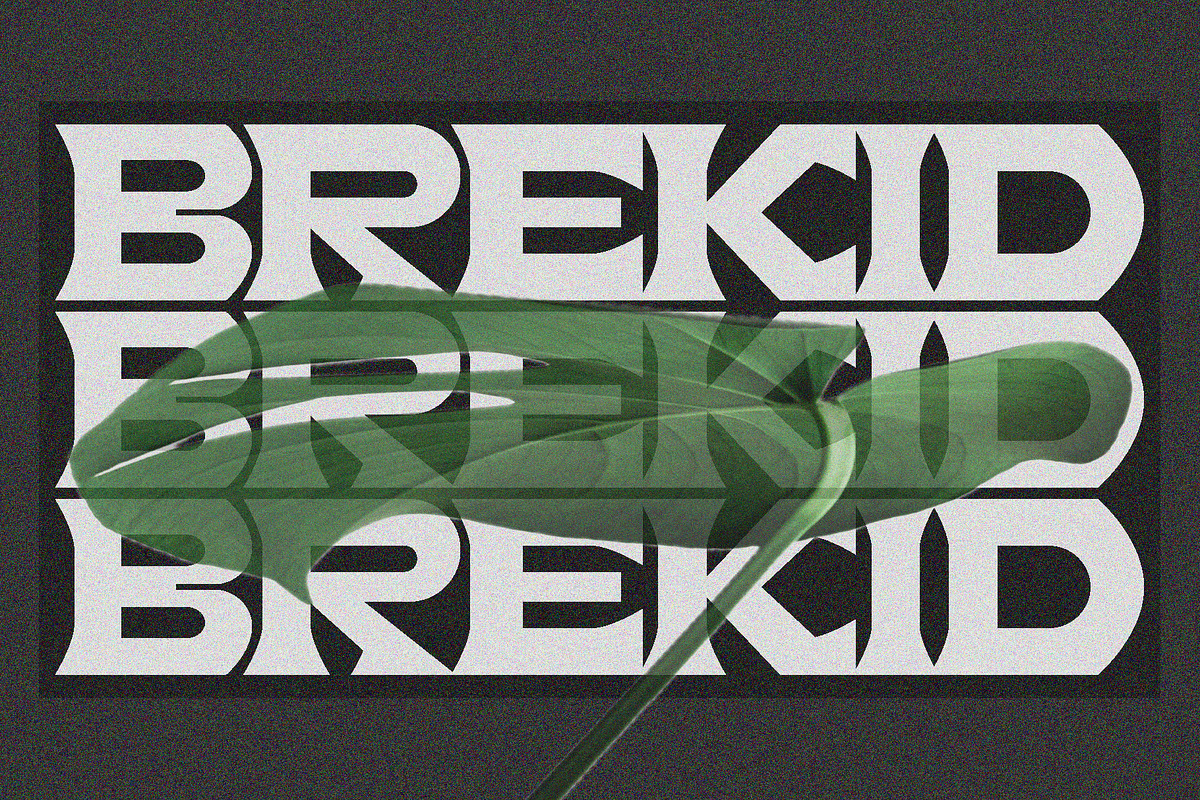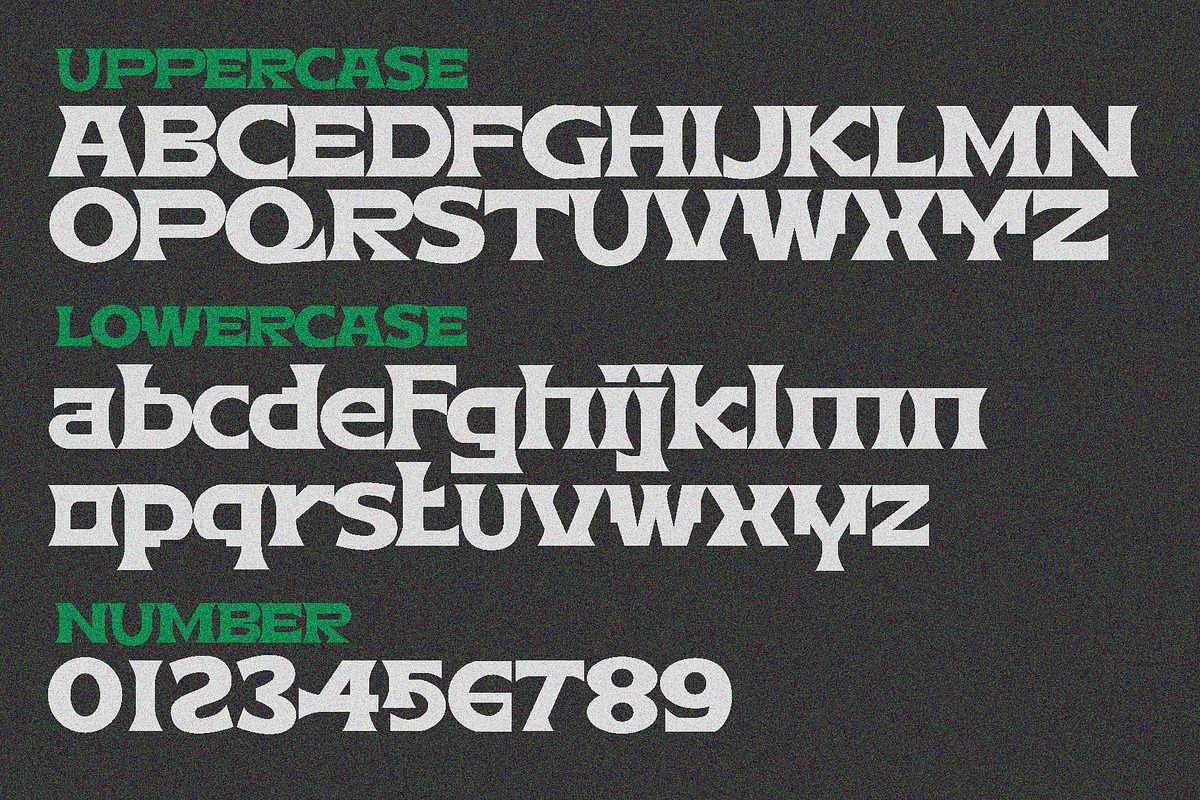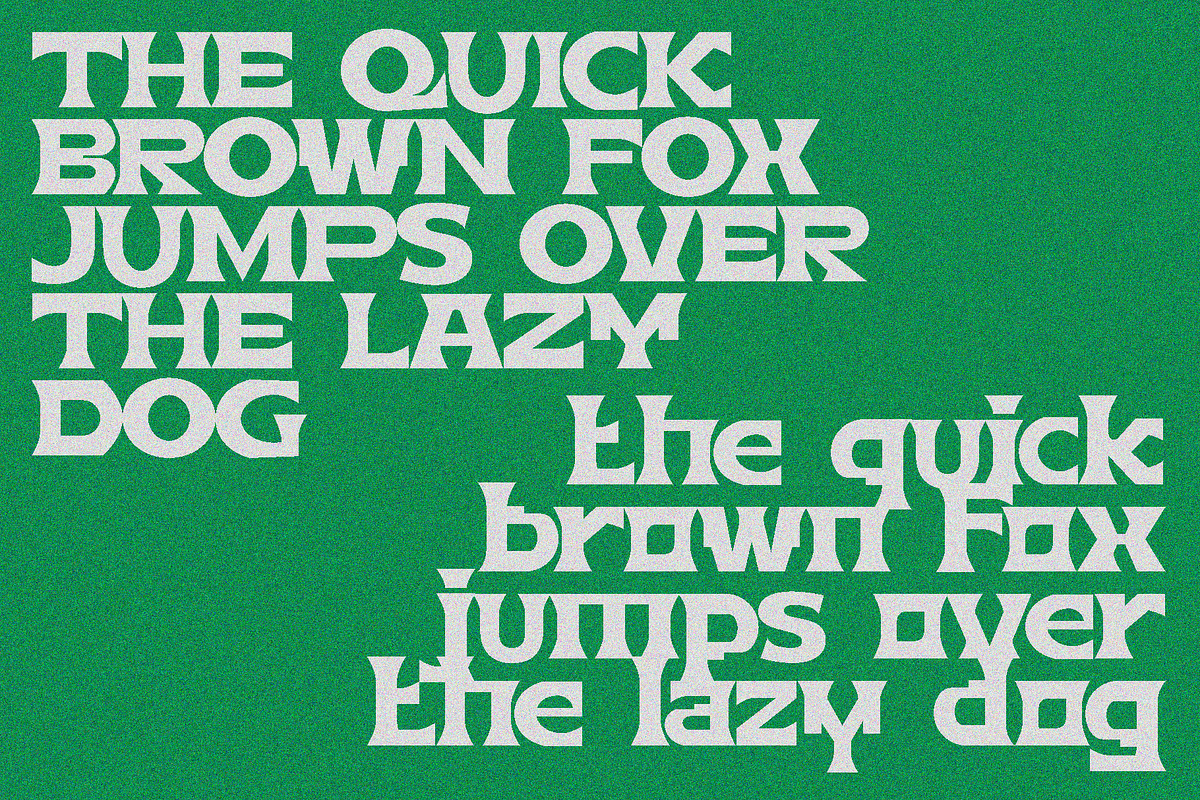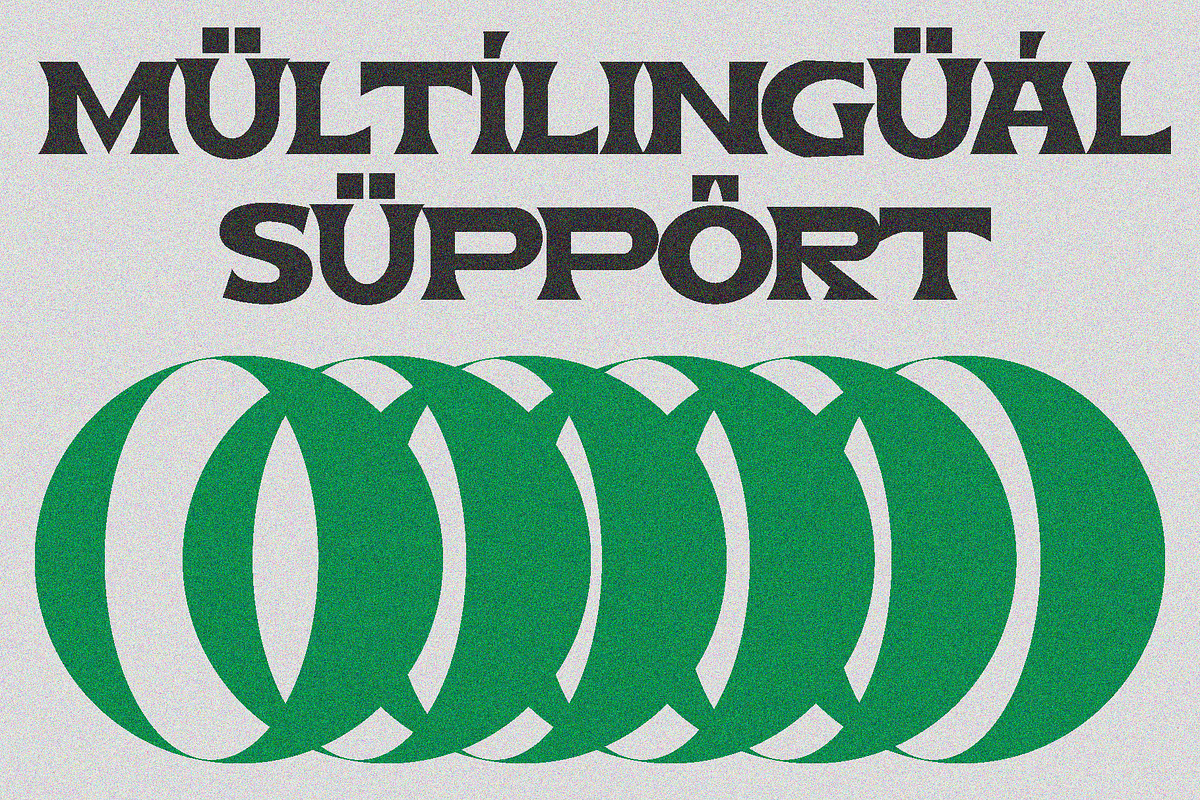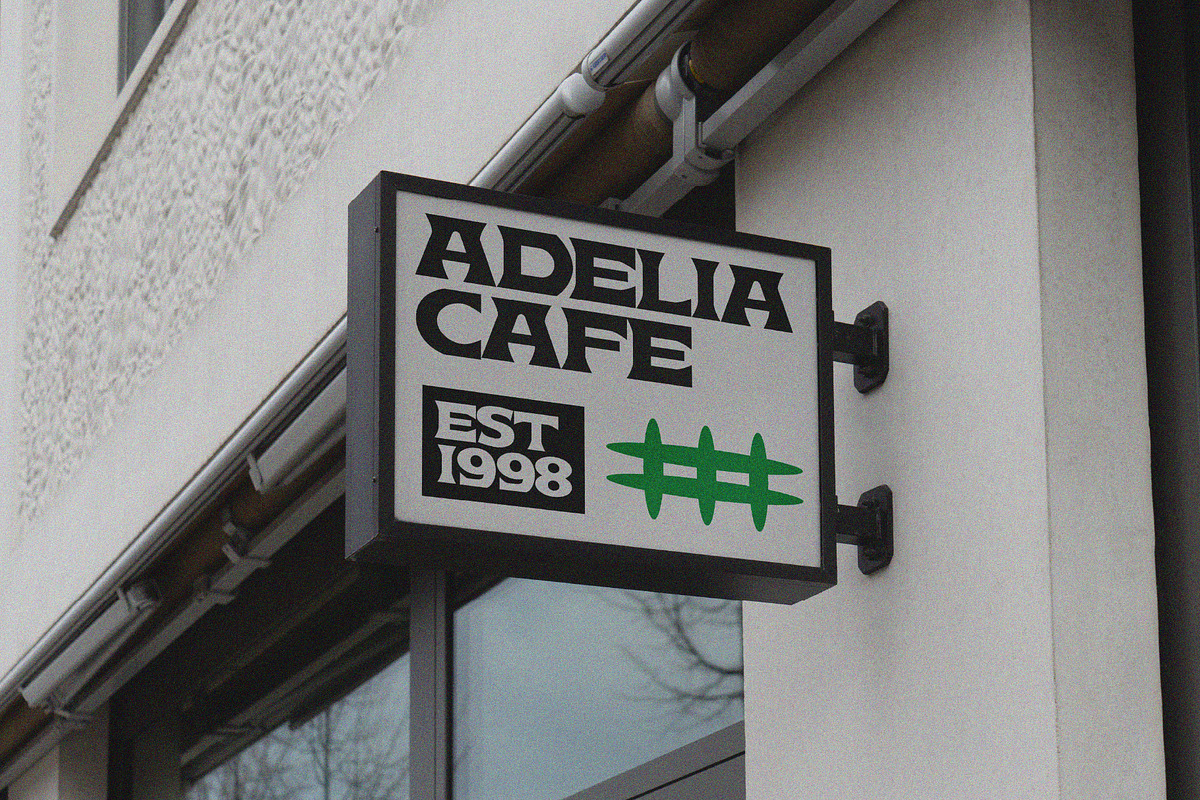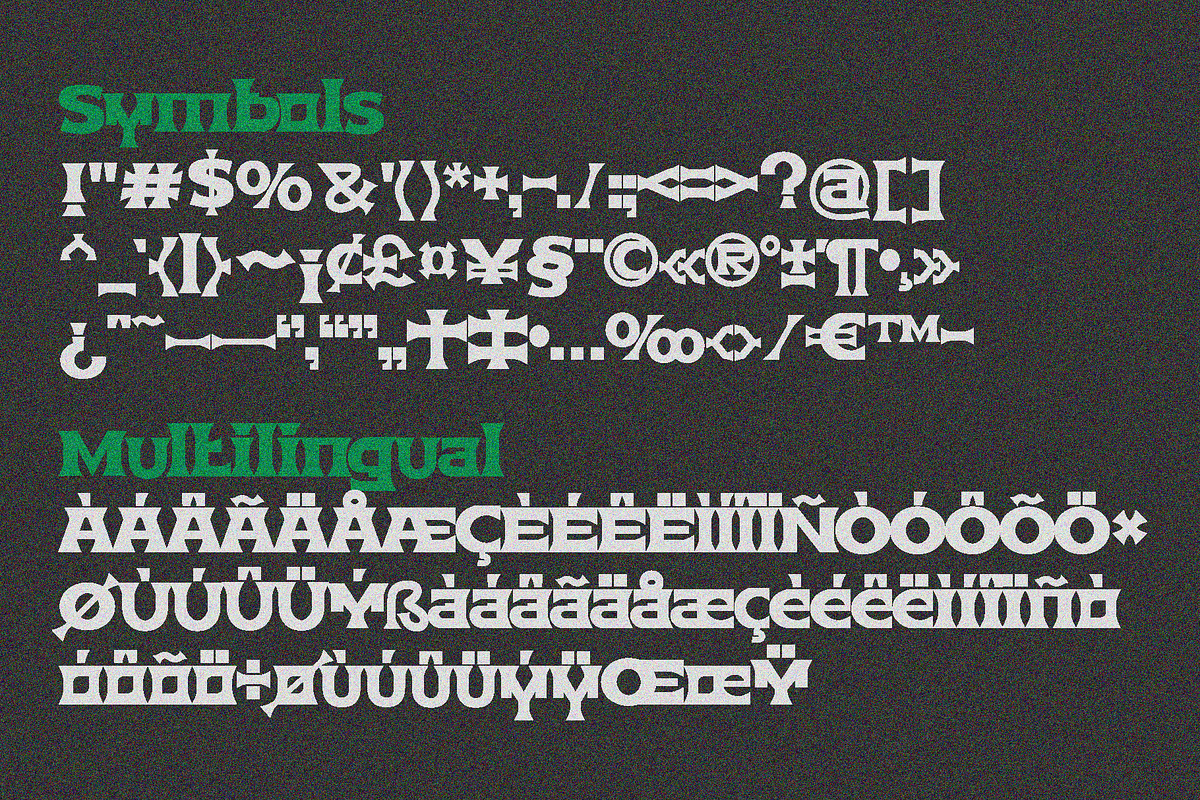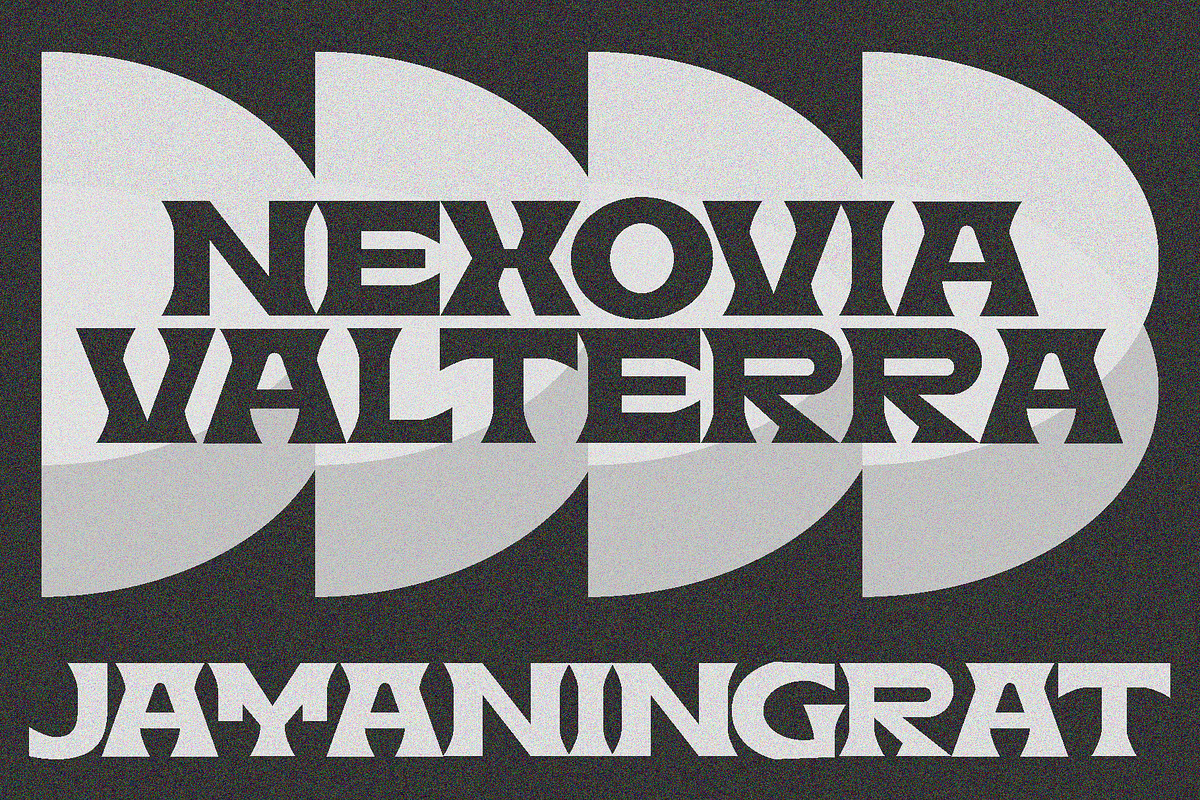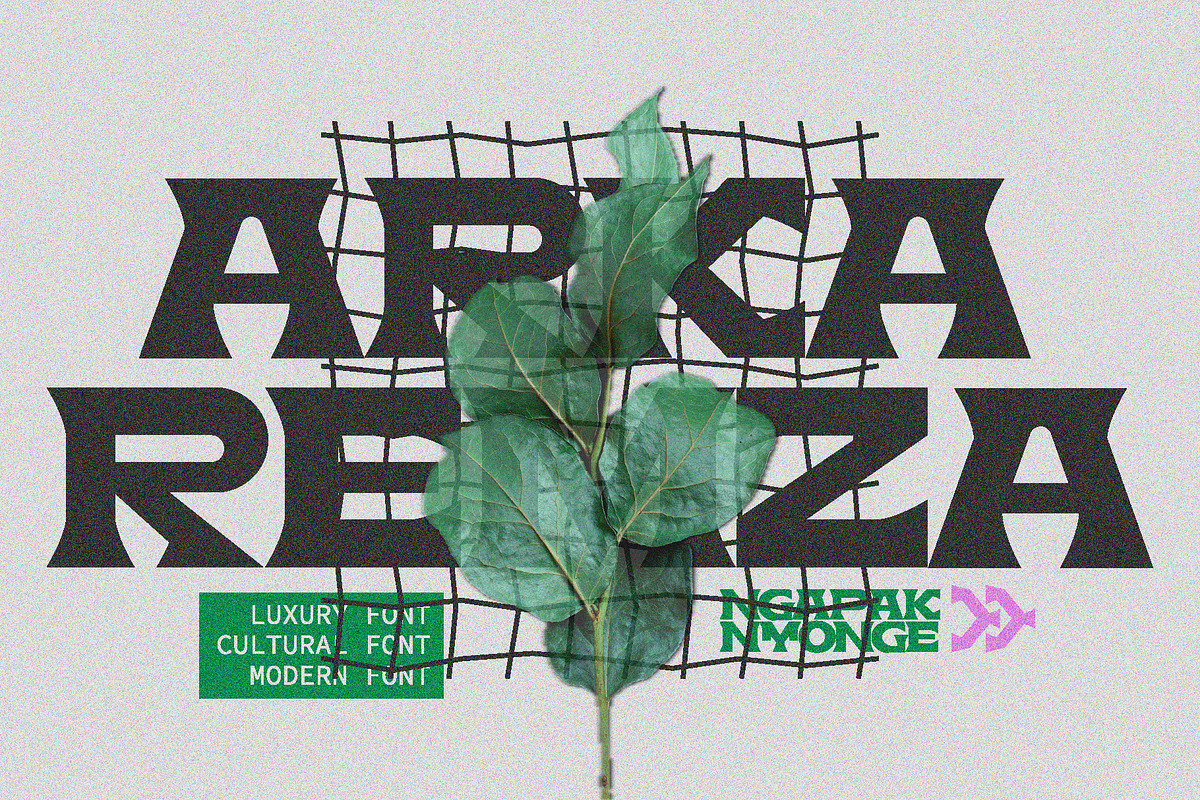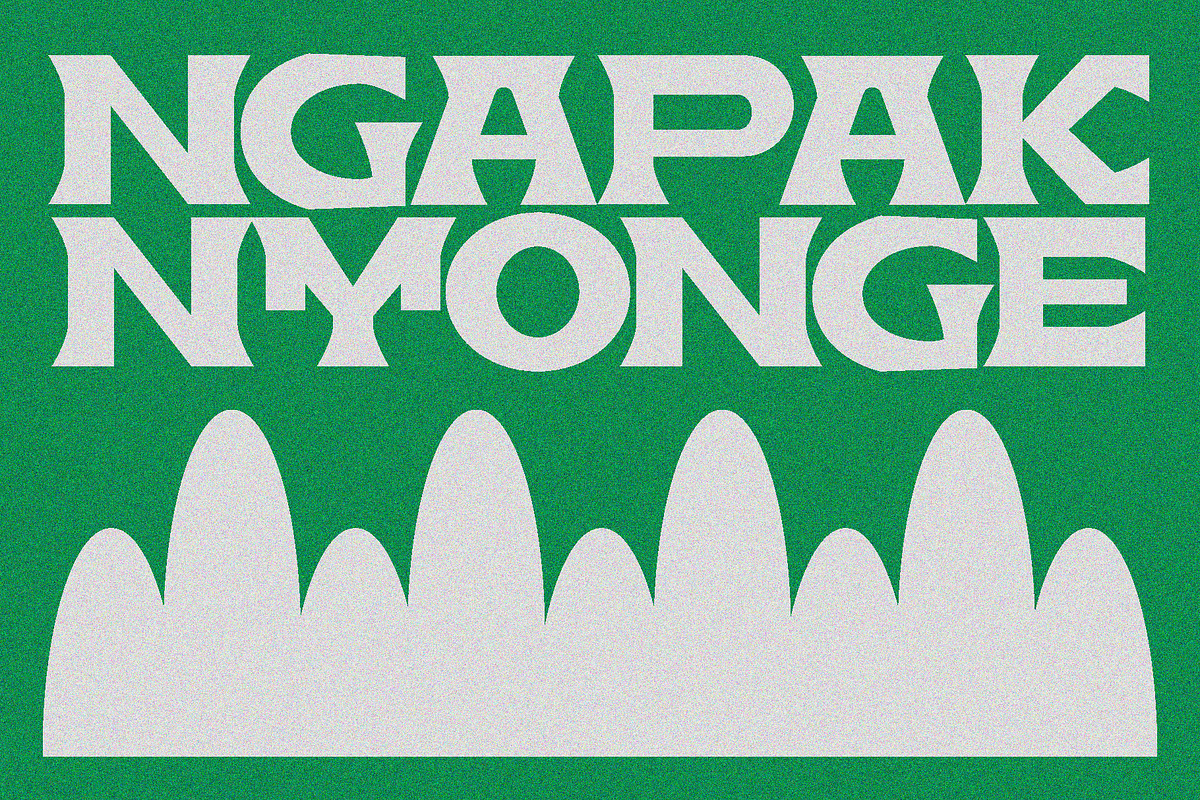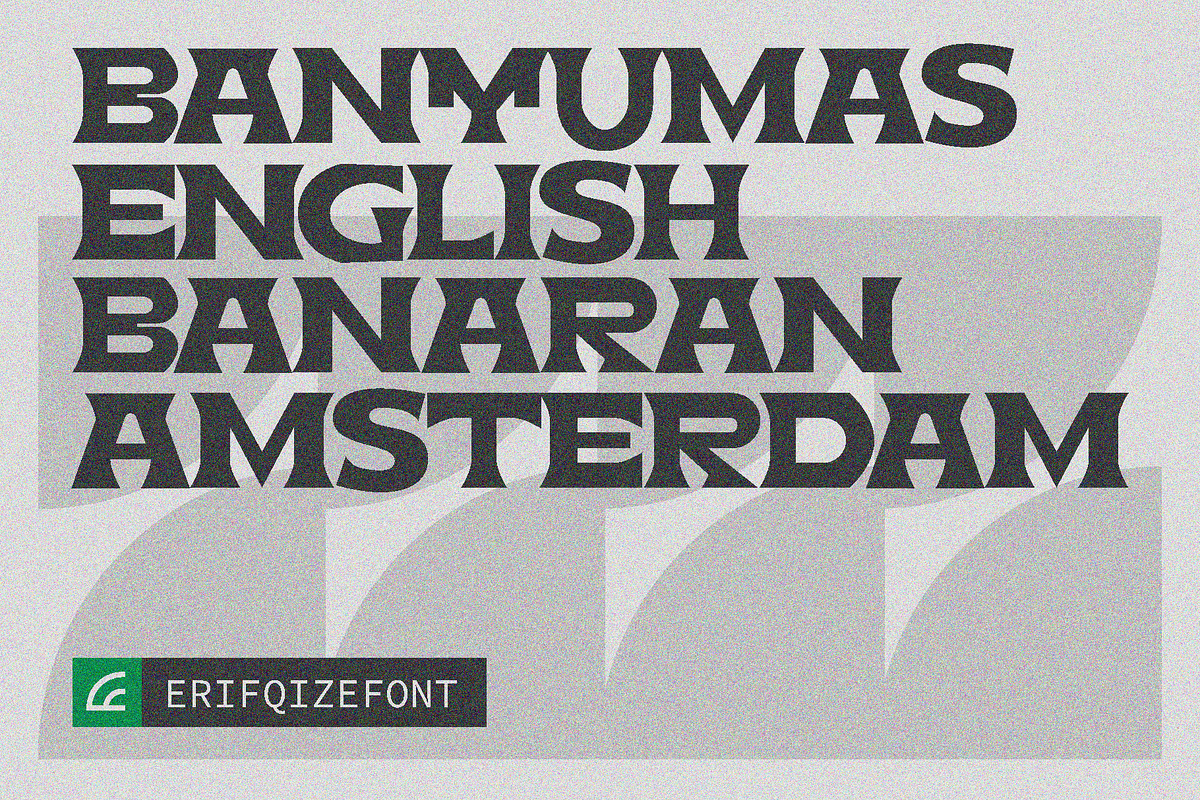
Brekid Luxurious Font
BREKID is a luxurious cultural display font that blends modern elegance with ethnic-inspired aesthetics. Featuring sharp geometric cuts, bold letterforms, and artistic ornamental details, BREKID delivers a strong visual identity perfect for premium branding, cultural projects, fashion editorials, luxury packaging, posters, album covers, and modern ethnic designs.
Its unique futuristic structure combined with cultural nuances creates a sophisticated and exclusive atmosphere, making the font stand out in both digital and print applications. BREKID is designed for creators who want a bold, artistic, and luxurious typographic statement.